39 Stylish Display Fonts You Should Be Using for Bold Branding in 2026
When you’re working on a high-stakes project, standard typefaces just don’t cut it. You need something that grabs attention immediately, which is why I’ve curated this collection of 39 stylish display fonts for your 2026 toolkit. Whether you are designing a sleek magazine cover or a modern web interface, these unique typefaces offer the personality and flair required to make your headlines stand out. From sharp geometric edges to elegant hand-drawn curves, these options cover every aesthetic you might need this year.
1. Different Cultures Font
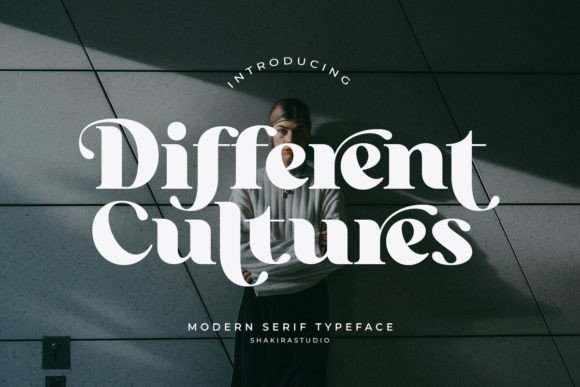
Different Cultures represents a sophisticated evolution in contemporary type design, merging the rhythmic weight of traditional serifs with a sharp, modern edge. This typeface excels at creating a visual dialogue between its heavy stems and delicate hairlines, resulting in a balanced aesthetic that commands attention on both digital screens and high-quality print. By integrating a vast library of alternates and ligatures, it empowers designers to break away from standard typesetting and craft unique, bespoke wordmarks that feel hand-tailored to specific branding needs.
Its versatility shines in contexts where a blend of global heritage and futuristic vision is required. Whether you are developing an identity for a boutique hotel or designing a high-concept magazine cover, this font provides the structural integrity and artistic flair needed to elevate the work. The meticulously crafted curves ensure that every character feels like a standalone piece of art, making it an essential tool for projects that demand a sense of worldly sophistication and refined elegance.
My Recommendation: I’d pick this for a high-end travel or lifestyle magazine where the typography needs to feel as curated as the photography. Its unique ligatures allow you to create custom-looking logos without having to manually draw every letterform.
2. Stylish Alphabet Font
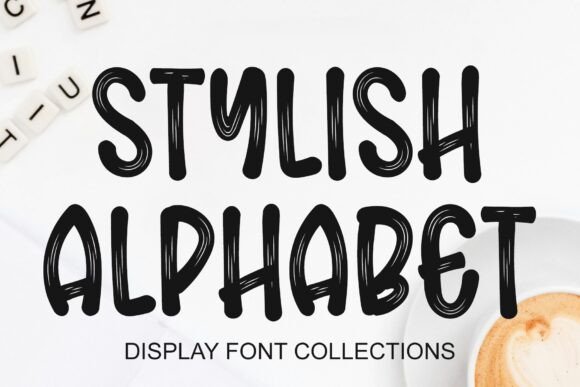
As the name suggests, Stylish Alphabet is built specifically for those who need high-impact visuals that bridge the gap between street style and editorial grace. This typeface is a quintessential example of how stylish display fonts can transform a simple headline into a powerful brand statement. It prioritizes artistic expression, utilizing exaggerated proportions and unique terminal shapes to ensure that any text set in large formats—like billboards, cinematic titles, or exhibition posters—instantly captures the viewer’s gaze and holds it.
In an era where digital noise is constant, this font offers a refreshing clarity through its bold silhouettes and expressive geometry. It is less about long-form readability and more about the visceral reaction a reader has to a single word. Perfect for edgy fashion labels or experimental art galleries, it provides a distinctive voice that feels both current and undeniably confident, ensuring your message is never lost in the crowd.
My Recommendation: This is my go-to for oversized poster designs or bold merchandise branding where the letters themselves are the main visual attraction. It has a certain cool factor that makes it perfect for streetwear labels or edgy digital portfolios.
3. Sovelis Font
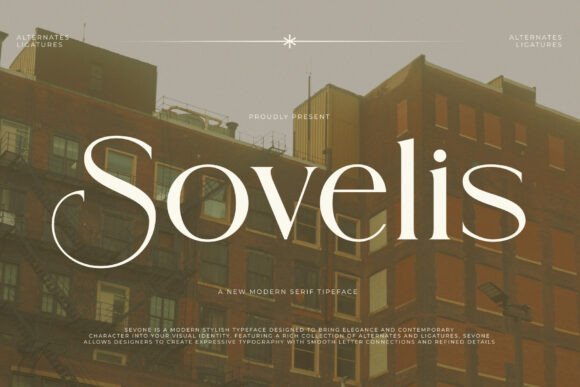
Sovelis is an architectural masterpiece in type form, designed for those who appreciate the intersection of high-fashion editorial aesthetics and structural precision. Its high-contrast letterforms are defined by sweeping, dramatic curves and needle-sharp serifs that evoke the feeling of luxury craftsmanship. This font doesn’t just sit on a page; it commands the space around it with a sense of urban-sophisticate energy, making it an ideal choice for high-end real estate developments or premium beauty brands looking to establish a prestigious presence.
The rhythmic flow of its ligatures and the sheer variety of its alternates allow for a high degree of customization, enabling designers to play with negative space and character interaction. When used in high-fashion layouts or minimalist social media headers, it brings a level of refinement that few other typefaces can match. It bridges the gap between the timeless elegance of heritage brands and the sleek, fast-paced world of contemporary design, offering a versatile yet deeply luxurious typographic experience.
My Recommendation: Use Sovelis when you want your project to scream expensive without being loud about it. Its sharp details work beautifully on wine labels or boutique hotel branding where every pixel needs to feel deliberate and upscale.
4. Cowboy Varsity Font
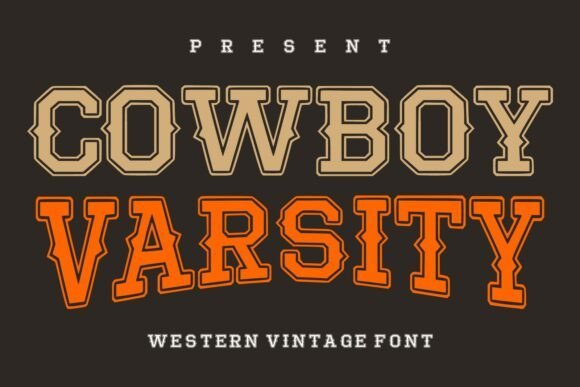
Cowboy Varsity Font creates a compelling intersection between the rugged spirit of the American frontier and the structured, competitive energy of collegiate athletics. This typeface utilizes a heavy slab-inspired base enhanced by intricate layered outlines, which provides a three-dimensional depth rarely seen in standard western styles. It acts as one of those stylish display fonts that can transition effortlessly from a retro rodeo poster to a modern athletic apparel line, offering a balanced aesthetic that feels both historic and high-performance.
When implementing this font in a design layout, its strength lies in its ability to command visual hierarchy. The bold, chunky letterforms provide exceptional readability at a distance, making it an ideal candidate for large-scale environmental graphics, varsity-style jackets, or branding for craft breweries that want to evoke a sense of heritage and craftsmanship. By mixing the traditional slab serifs of the Old West with the clean, rhythmic lines of a varsity letter, this font delivers a unique typographic voice that stands out in a crowded digital landscape.
My Recommendation: I would reach for this font when a project needs to feel masculine and authoritative but still approachable. It is particularly effective for outdoor lifestyle brands or sports-themed events where you want a punchy, nostalgic aesthetic without sacrificing legibility.
5. Darkwood Font
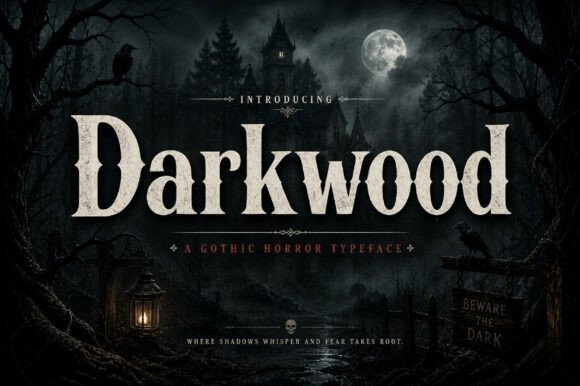
Darkwood Font is a masterclass in atmospheric typography, blending heavy serif structures with a sense of mysterious, old-world sophistication. The design features thick, compressed letterforms and sharp, angular serifs that evoke the aesthetic of artisanal woodcuts and vintage broadsides. This creates a powerful visual presence that feels both premium and slightly brooding, making it perfect for creative work that requires a strong, moody identity rather than a purely decorative flourish.
The versatility of this typeface is most apparent in branding projects for high-end spirits, artisanal coffee, or editorial titles for dark-themed fiction. Because the character widths are substantial, it holds up beautifully in print applications like embossed labels or textured packaging where the tactile nature of the font can shine. Its dramatic personality allows designers to create statement headlines that feel anchored and timeless, bridging the gap between historical elegance and contemporary graphic impact.
My Recommendation: This font has a weight and gravity that makes it feel incredibly permanent and trustworthy. I recommend using it for boutique packaging or album covers where you need the title to feel like a central piece of art rather than just a secondary label.
6. Stay Disney Font
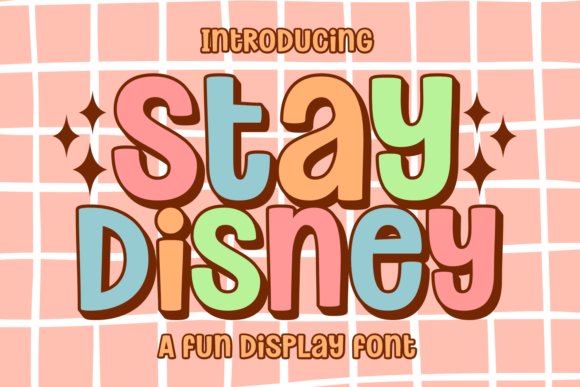
Stay Disney Font is a vibrant celebration of maximalism, channeling the groovy, bubble-letter aesthetic of the 1970s with a modern, candy-colored twist. It captures a sense of pure optimism through its rounded curves and fluid, interconnected shapes that seem to bounce off the page. As one of the most playful stylish display fonts available today, it serves as an essential tool for designers looking to inject a sense of joy and wonder into their digital assets, from social media graphics to interactive game interfaces.
Beyond its cheerful exterior, the font is remarkably functional, providing high readability even with its unconventional, bulbous forms. This makes it a top-tier choice for children’s product packaging, playful stationery, and trendy sticker designs. It fits perfectly within the ‘boho-retro’ trend, offering a soft but energetic vibe that works well for branding influencers, boutique toy stores, or any project that prioritizes a fun, approachable, and highly tactile visual language. The inclusion of multi-lingual support and swash variants further extends its utility for global creative campaigns.
My Recommendation: The infectious energy of these bubble letters makes them a fantastic choice for any project that needs to feel friendly and high-energy. I personally love using this for YouTube thumbnails or digital planner titles because the letters have such a satisfying, pillowy volume.
7. Maka Font
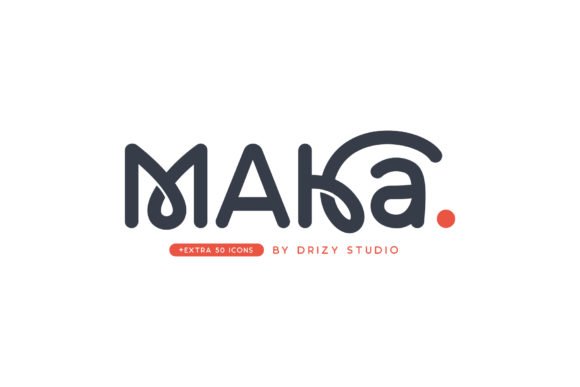
Maka Font introduces a compelling visual rhythm that instantly elevates any layout from standard to extraordinary. Its structure leans into a blend of organic fluidity and calculated precision, making it an ideal candidate for projects that require a strong personality without sacrificing legibility. The letterforms are crafted to command attention, ensuring that your headlines and title sequences possess a distinct, memorable quality.
Beyond its aesthetic appeal, this typeface is exceptionally versatile, adapting seamlessly to various creative contexts from digital interfaces to printed ephemera. Whether you are working on a high-end fashion magazine or a boutique branding project, its unique contours provide a sophisticated edge. The typeface encourages experimentation, allowing designers to push the boundaries of modern typography while maintaining a professional and polished finish.
My Recommendation: I’d pick this for a project that needs a touch of controlled chaos; it’s perfect for indie zines or experimental fashion branding. The way the characters interact creates a natural flow that makes long-form headings look much more dynamic than a standard sans.
8. Vera Font
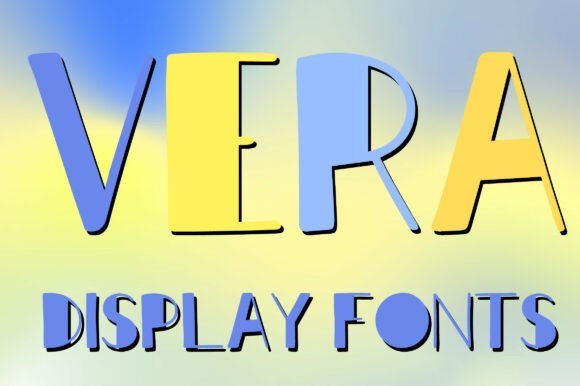
Vera Font stands out as a premier example of how height and shadow can redefine a page. This typeface utilizes tall, elongated letterforms and a playful mixture of stroke weights to create a sense of vertical movement. The integrated shadow details add a layer of three-dimensional depth, making it one of the most effective stylish display fonts for designers looking to create impact in crowded visual environments.
Equipped with a full set of uppercase characters and numerals, Vera is engineered for clarity and artistic flair. The soft rounded edges balance the sharpness of its tall proportions, providing a handcrafted feel that remains clean and professional. It is particularly well-suited for logo design, bold poster layouts, and social media assets where a fresh, eye-catching aesthetic is paramount to capturing audience interest.
My Recommendation: Use Vera when you need your headlines to literally pop off the screen as the built-in shadows save so much time in post-production. It is my go-to for summer-themed event posters or boutique packaging because of its breezy yet bold architectural vibe.
9. Annabeth Font
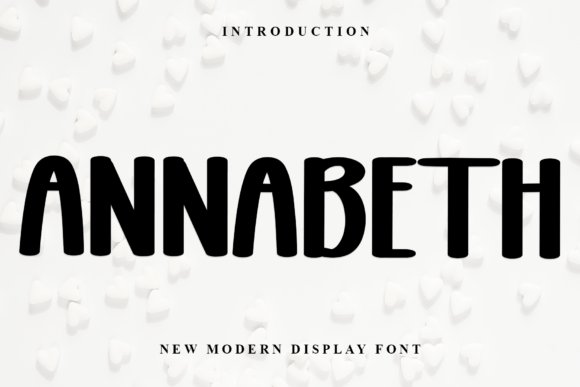
Annabeth Font is a sophisticated homage to classical calligraphy, reimagined through a contemporary lens for the modern designer. Its form is defined by impeccable balance and varied stroke widths that mimic the natural movement of a pen, resulting in a typeface that feels both timeless and current. By bridging the gap between traditional handwriting and high-impact display needs, it offers a level of typographic finesse that is hard to replicate with standard serif options.
A standout feature of this typeface is its PUA encoding, which provides effortless access to a wide array of glyphs and ligatures. This allows for a high degree of customization, enabling designers to tailor the look of every word to fit the specific mood of a project. From luxury invitations to high-end beauty branding, the graceful curves and refined structure of the typeface ensure that every application exudes elegance and premium quality.
My Recommendation: This is the font I reach for when a client asks for expensive-looking typography that does not feel stuffy or outdated. It works beautifully on wedding stationery or high-end lifestyle blogs where the goal is to communicate grace and attention to detail.
10. Vintage Font
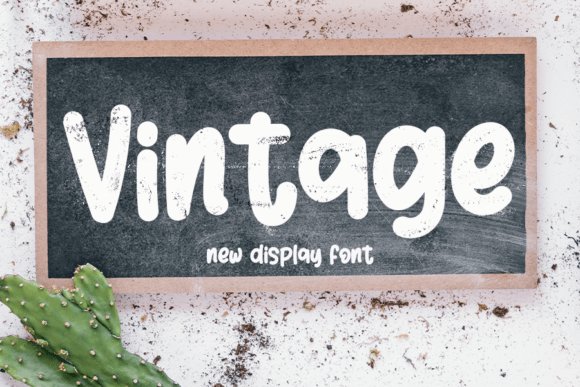
The Vintage Font stands as a masterclass in combining calligraphic tradition with the sharp requirements of modern digital displays. Drawing deep inspiration from timeless hand-lettering, this typeface features balanced proportions and a varied character set that mimics the natural flow of ink on parchment. Each stroke is meticulously polished to ensure that while it carries an old-world charm, it never feels dated or out of place in a contemporary layout.
When searching for stylish display fonts that can elevate a luxury brand’s identity, this font offers a unique solution by injecting personality into every headline. It is particularly effective for high-end wedding stationery, artisanal product packaging, and editorial mastheads where beauty and form are just as important as the message itself. The interplay between thick and thin lines creates a rhythmic visual interest that holds the viewer’s attention across various print and digital mediums.
My Recommendation: I would reach for this font when a project requires a touch of historical sophistication without sacrificing modern legibility. It is the perfect choice for high-end skincare packaging or custom invitations where you want the typography to feel curated and bespoke.
11. Simple Anime Font
Simple Anime Font delivers a powerful visual punch through its thick, unapologetic character forms that demand immediate attention. While many typefaces in this genre overcomplicate their geometry, this design leans into a clean, minimalist approach that maximizes impact. The heavy weights are expertly handled to maintain excellent legibility even at smaller scales, making it a versatile tool for designers who need their message to stand out in a crowded visual environment.
This typeface is exceptionally well-suited for high-energy projects like gaming thumbnails, streetwear branding, and energetic social media graphics. Its chunky nature gives it a playful yet assertive personality that resonates with younger audiences and pop culture enthusiasts. Whether used for a bold T-shirt slogan or a dynamic video title sequence, the characters provide a solid foundation that supports vibrant color palettes and complex graphic overlays.
My Recommendation: This is my go-to for merchandise design or YouTube thumbnails because it cuts through the noise so effectively. Its weight allows for great texture overlays or neon glow effects, making it a dream for creative experiments.
12. Maghikle Font
Maghikle Font is a sophisticated sans serif that redefines elegance through its unique character silhouettes and refined spacing. Unlike standard geometric faces, this typeface introduces subtle stylistic flourishes that give it a high-fashion edge, bridging the gap between minimalist utility and decorative art. Its lean, architectural structure makes it an ideal candidate for projects that aim for a look of understated luxury and modern exclusivity.
As one of the more versatile stylish display fonts in a designer’s toolkit, it excels in contexts like upscale magazine layouts, boutique logo design, and high-concept apparel branding. The font’s inherent grace allows it to carry the weight of a brand’s identity with very little assistance from supporting graphics. It works beautifully in high-contrast color schemes, such as gold foil on matte black, where the precision of its outlines can truly shine and convey a sense of premium quality.
My Recommendation: I highly recommend Maghikle for anyone working on a minimalist fashion brand or a high-end architectural portfolio. The way the characters interact creates a rhythmic, expensive feel that makes even a simple one-word logo look like a work of art.
13. Funny Hippo Font
Funny Hippo breaks away from the rigid structures of traditional typography, offering a bubbly and approachable aesthetic that feels hand-crafted and welcoming. Its rounded, curvy accents create a soft visual texture, making it particularly effective for projects that require a friendly, informal touch. The varied letter proportions and dynamic angles give each word a sense of movement, ensuring that even static text feels energetic and alive.
This typeface excels in environments where personality is paramount, such as children’s educational materials, artisanal packaging, or casual blog headers. By balancing thick, friendly strokes with unexpected geometric shifts, it provides a unique character that stands out against more clinical sans-serif alternatives. It is a fantastic asset for designers looking to inject a bit of joy and spontaneity into their visual communication without sacrificing readability.
My Recommendation: I love using this for playful branding because it feels human and approachable. It is especially great for craft packaging or youth-oriented products where you want to avoid anything too corporate or stiff.
14. Valentine Font
Valentine represents the pinnacle of modern minimalism, bridging the gap between high-fashion editorial and contemporary digital design. As one of those rare stylish display fonts that manages to be both striking and understated, it utilizes clean lines and precise geometry to convey a sense of prestige. Its letterforms are crafted with a focus on balance and negative space, allowing for a breathable layout that feels expensive and curated.
Whether you are designing a high-end logo for a jewelry brand or a sleek movie title, this typeface provides the structural integrity needed for luxury branding. Its versatile nature makes it equally at home on a minimalist book cover as it is on social media graphics for a boutique clothing line. The sharp, clean edges ensure that the text remains crisp across various media, from printed silk tags to high-resolution digital screens.
My Recommendation: This is my top pick for high-end fashion logos or minimalist wedding invitations. It has a beautiful, airy quality that makes any project feel instantly more expensive and professional.
15. The Paloma Font
The Paloma is a masterclass in high-contrast design, blending the timeless tradition of classical serifs with a sharp, contemporary edge. Each glyph is defined by an extreme variation between its hairlines and stems, creating a dramatic visual rhythm that commands attention on the page. This refined aesthetic makes it an ideal choice for editorial layouts where the typography needs to act as a central design element rather than just a vehicle for information.
Its sophisticated silhouette is particularly effective for luxury identities and upscale lifestyle branding. The sharp, needle-like serifs add a level of precision that feels artisanal and bespoke, making it perfect for wine labels, high-end fragrance packaging, or minimalist gallery posters. By choosing this font, designers can achieve a look of quiet confidence and enduring elegance that bypasses passing trends in favor of a more permanent, sophisticated appeal.
My Recommendation: I would choose this for a luxury editorial spread or a premium lifestyle brand. The extreme contrast between the thick and thin lines creates a sharp, high-fashion look that is truly captivating.
16. Thick Font
Thick offers a refreshing take on the retro script genre, blending heavy-weighted strokes with a lighthearted, handwritten rhythm. This typeface manages to feel both substantial and agile, making it a standout selection among modern stylish display fonts that aim for a nostalgic yet current aesthetic. Its smooth curves and organic flow are meticulously crafted to ensure that even at larger scales, the letterforms maintain a soft, approachable charm that resonates with contemporary audiences.
Beyond its visual appeal, this font is a powerhouse for branding and merchandise design. Whether you are creating a bold logo for a startup or a vibrant graphic for a T-shirt, its chunky architecture provides excellent legibility and a friendly vibe. It bridges the gap between vintage sign painting and digital-first design, making it particularly effective for product labels and invitation headers where a touch of personality is paramount.
My Recommendation: I would pick this font for a project that needs to feel like a warm hug—it has a bounce and friendly weight that works wonders for artisanal food packaging. It’s the kind of script that stands out on a hoodie or a coffee shop window without feeling overly formal or stiff.
17. Biges Font
Biges is a masterclass in editorial elegance, featuring razor-thin serif details and sophisticated swashes that dance across the baseline. Unlike traditional heavy serifs, this typeface embraces a slender, elongated silhouette that projects a sense of luxury and calm. The interplay between its sharp edges and fluid flourishes creates a dynamic visual rhythm, transforming standard copy into a piece of high-end typographic art that demands a second look.
Designed with a focus on whitespace and balance, the uppercase characters offer a particularly refined presence. The generous kerning and open apertures make it an exceptional choice for minimalist headlines and premium identity systems. It excels in contexts where the goal is to convey prestige without shouting, providing a polished and graceful foundation for fashion magazines, luxury packaging, and boutique brand marks.
My Recommendation: Use Biges when you are aiming for that ‘Vogue’ aesthetic; its airy letterforms and delicate swashes are perfect for high-end skincare or jewelry brands. It brings a sophisticated silence to a layout that allows your imagery to breathe while still looking incredibly expensive.
18. Cowboy Outlines Font
Cowboy Outlines brings a rugged, frontier-inspired spirit to the digital age, revitalizing the classic slab-serif look with a crisp outline treatment. As one of the more versatile stylish display fonts in the vintage category, it captures the essence of old-west posters while offering the clarity required for high-definition screens. The geometric precision of the hollow strokes allows for incredible flexibility, enabling designers to experiment with background textures and color overlays without losing the font’s structural integrity.
This typeface is perfectly suited for projects that require a bold, masculine presence with a hint of nostalgia. Its outlined form is specifically engineered for layering, making it a go-to tool for creating complex shadow effects or multi-colored emblems. From brewery branding to rugged outdoor apparel labels, this font provides a timeless western character that feels intentionally crafted and visually impactful.
My Recommendation: This is my favorite choice for creating custom patches or varsity-style logos because the outline allows you to layer it over textures without the design feeling too heavy. It captures that authentic Americana vibe perfectly for craft beer labels or music festival posters.
19. Distressed Font
Distressed Font offers an uncompromisingly raw aesthetic that perfectly captures the essence of street culture and industrial grit. Its heavily textured outlines and irregular strokes create a sense of movement and authentic wear-and-tear that clean typefaces simply cannot replicate. It excels in environments where a sense of history or rebellious energy is needed, making it a standout choice for high-impact visual storytelling and underground branding.
Beyond its rugged exterior, this typeface maintains a high level of legibility even at smaller display sizes. It is particularly effective for branding projects that lean into a vintage punk or weathered aesthetic, such as apparel design, artisanal packaging, or alternative music promotion. By incorporating these distressed elements, designers can infuse their work with a tactile, handmade quality that resonates with audiences looking for authenticity over polished perfection.
My Recommendation: I would reach for this font when working on a craft brewery label or a gritty documentary poster. Its organic imperfections provide an immediate sense of character that makes a brand feel lived-in and genuine rather than mass-produced.
20. Puzo Font
Puzo Font represents a sophisticated take on contemporary type design, balancing bold structural geometry with elegant curves. As a prime example of stylish display fonts, it manages to remain versatile enough for luxury editorial layouts while maintaining a distinct personality that commands attention. The letterforms are meticulously weighted to ensure a harmonious flow across headlines, giving any composition a refined and professional finish that feels modern yet timeless.
The versatility of this typeface allows it to transition seamlessly between high-end fashion branding and modern digital interfaces. Its clean lines and unique character terminals offer a fresh perspective on minimalist typography, ensuring that your message stands out in a crowded visual landscape. Whether used for a minimalist logo or an expansive magazine spread, it provides a polished look that elevates the overall design hierarchy and visual appeal.
My Recommendation: This is my go-to choice for sophisticated tech startups or boutique hotel branding. It has that rare ability to look expensive and curated without being overly ornate, making it perfect for a brand that values modern minimalism and class.
21. Neon Night Font
Neon Night Font captures the electrifying energy of a metropolis after dark, drawing heavy inspiration from the luminous glass tubes of retro signage. Each character is crafted with a sense of depth and vibrancy, mimicking the glow and soft falloff of actual neon light. It is a highly expressive typeface that immediately transports the viewer to a world of futuristic cityscapes and late-night adventures, making it ideal for high-contrast digital designs and immersive brand environments.
While it thrives in retro-wave and synth-wave contexts, this font also brings a modern urban edge to streetwear marketing and social media graphics. Its bold, tubular structure works exceptionally well when paired with vibrant color palettes and dark backgrounds, providing a striking visual anchor for YouTube thumbnails or event flyers. This typeface doesn’t just display text; it sets a specific mood of excitement and nocturnal mystery that is hard to ignore.
My Recommendation: I would use this specifically for a podcast cover or a late-night cafe menu where you want to evoke a city-that-never-sleeps vibe. The way the lines flow makes it feel dynamic and perfect for projects that need to pop against dark backgrounds.
22. Shallota Font
Shallota stands as a masterclass in modern elegance, merging heavy, confident weights with a refined, smooth silhouette. Its aesthetic is deeply rooted in the world of high-end editorial work and boutique fashion, where every curve and terminal must convey a sense of luxury. As one of the most effective stylish display fonts for creators seeking a high-contrast look, it effortlessly draws the eye without overwhelming the surrounding design elements.
Functionally, the font is PUA encoded, which is a significant boon for designers who want to push their creative boundaries. This technical feature ensures that all the intricate swashes and unique glyphs are accessible across various software platforms, allowing for custom ligatures that make a logo or headline feel bespoke. Whether you are crafting a masthead for a lifestyle magazine or a visual identity for a premium skincare line, this typeface provides the necessary gravitas and artistic flair.
My Recommendation: I would choose Shallota for luxury branding or minimalist magazine covers where you need the text to feel like a piece of art. The way the bold strokes transition into delicate lines creates a rhythm that feels very high-fashion and expensive.
23. Theory Display Font
Theory Display breaks away from the polished world of digital vectors to offer an authentic, hand-crafted aesthetic. Created with a brush pen, this typeface retains the gritty, organic textures and flowing motion of wet ink on paper. Its visual language is one of raw energy and spontaneity, making it an ideal candidate for projects that require a human touch or a sense of street-level urgency.
The font’s charm lies in its imperfections, such as the natural dry-brush streaks and variable stroke widths that suggest a designer’s hand at work. This makes it particularly effective for music festival posters, cinematic titles, or urban apparel brands where a sterile typeface would feel out of place. It layers beautifully over photography, lending a visceral and textured quality to headlines that demands immediate attention from the viewer.
My Recommendation: This is my go-to for action-oriented designs or event branding where you want a raw, handmade vibe. Its textured finish means you don’t have to spend extra time adding distressing effects to your typography; it carries that energy right out of the box.
24. Melipe Font
Melipe is a breath of fresh air for designers looking to inject whimsy and playfulness into their visual storytelling. With its bouncy baselines and unconventional character shapes, it manages to be both highly engaging and surprisingly versatile. In a landscape filled with rigid typography, Melipe stands out among stylish display fonts by prioritizing a sense of joy and approachability that is often missing in professional font kits.
The typeface excels in environments where the goal is to build a friendly rapport with the audience, such as children’s educational materials, artisanal product packaging, or vibrant social media campaigns. Its unique letterforms provide a distinctive personality that can anchor an entire brand identity, ensuring that the messaging feels imaginative and full of life. It’s a tool for creators who want to break the mold and offer something that feels warm, personal, and visually captivating.
My Recommendation: Melipe is fantastic for boutique food packaging or creative apps aimed at a younger, more imaginative audience. I love how it balances a quirky personality with great legibility, making it a reliable choice for long headlines that still need to look fun.
25. Charlotte Font
Charlotte is a masterclass in typographic harmony, striking a perfect equilibrium between weight and whitespace. Its design philosophy centers on a balanced structure that avoids the extremes of spindly lines or overwhelming thickness, making it a versatile choice for designers aiming for a refined, upscale aesthetic. The subtle variations in its strokes suggest a handcrafted origin, lending an organic warmth to digital layouts that often feel too sterile.
This typeface excels in environments where beauty and readability must coexist, such as luxury skincare packaging or high-end editorial spreads. Its rhythmic flow guides the eye effortlessly across the page, while the carefully sculpted serifs add a touch of classic sophistication. Whether you are crafting a brand identity for a boutique or designing a curated coffee table book, this font provides the structural integrity needed to anchor your visual narrative.
My Recommendation: I would reach for this font when a project requires a touch of grace without being overly delicate. It is particularly effective for lifestyle branding where you need the typography to feel both approachable and expensive at the same time.
26. Blue Bronx Font
When your design requires a bold, unapologetic presence, Blue Bronx stands out as one of the most compelling stylish display fonts available today. Characterized by its heavy-set letterforms and daring silhouettes, this typeface is engineered for high-impact communication. It discards subtlety in favor of a confident, urban energy that makes every word feel like a definitive statement, making it perfect for catching the eye in a crowded marketplace.
Beyond its visual weight, the font offers a modern edge that suits contemporary branding, product labels, and energetic advertising campaigns. Its thick, sturdy strokes ensure maximum legibility even at large scales, making it an ideal candidate for billboard designs or streetwear merchandise. By integrating this face into your creative toolkit, you gain the ability to infuse projects with a sense of strength and forward-thinking style that is hard to ignore.
My Recommendation: This is my go-to for loud branding projects that need to bridge the gap between street culture and professional design. It works exceptionally well on physical packaging where the texture of the print can play off the font’s bold geometry.
27. Nyla Font
Nyla represents a fascinating intersection of elongated verticality and soft, rounded geometry, creating a chic visual language that feels both modern and whimsical. By blending these contrasting shapes, the typeface achieves a unique ‘tall’ profile that saves horizontal space while maximizing vertical presence. This makes it an excellent choice for experimental layouts where typographic height can be used to create architectural interest on the page.
The font is specifically tailored for creative applications that prioritize expressive character over traditional text blocks, featuring uppercase English letters and numbers that pop with personality. Its playful yet sophisticated construction makes it a standout for event posters, artistic social media assets, and specialized logo marks. Because it avoids standard conventions, it invites designers to push their creative limits and explore unconventional kerning and stacking techniques.
My Recommendation: I recommend this specifically for headline-heavy work where you want to break away from standard proportions. The tall, circular nature of the letters makes it incredibly fun to use in vertical layouts or minimalist poster designs.
28. Stay Lucky Font
Stay Lucky is a powerhouse of personality that draws heavily from the maximalist aesthetic of the 1970s. This typeface is more than just a set of letters; it is a full-bodied design tool that captures the essence of groovy, high-energy branding. Its thick, wavy strokes and bold presence make it a standout among stylish display fonts, providing a sense of nostalgic warmth that works perfectly for eye-catching t-shirt designs, vibrant product packaging, and bold posters that need to command attention immediately.
Beyond its vintage charm, this font is incredibly versatile for the modern digital landscape. Whether you are building an interface for a casual mobile game or designing assets for digital planners and stickers, Stay Lucky provides a consistent, legible, and fun atmosphere. It includes a comprehensive set of alternates and ligatures, alongside support for Procreate and SVG formats, allowing designers to manipulate the text to fit various artistic contexts from bohemian aesthetics to psychedelic retro themes.
My Recommendation: I would reach for Stay Lucky when a project needs a massive dose of optimism and character. It is particularly effective for merchandise and YouTube branding where you want to project a fun, approachable, and slightly eccentric persona that stands out in a crowded feed.
29. Slowdate Font
Slowdate represents the pinnacle of modern luxury in the world of serif typography. This typeface is defined by its slender, graceful proportions and a series of meticulously crafted ligatures that transform standard text into a bespoke piece of art. Its feminine and high-end character makes it a natural fit for editorial layouts, boutique branding, and sophisticated wedding invitations where a sense of royal elegance is required. The balance between its sharp serifs and soft, fluid curves creates a rhythmic flow that feels both timeless and contemporary.
In professional branding contexts, Slowdate excels in sectors like premium skincare, fine jewelry, and fashion-forward cosmetic labels. The font’s architecture is designed to look expensive and exclusive, providing an instant upgrade to minimalist logo designs. Because it prioritizes refinement and clarity, it functions beautifully as a primary header font that communicates a brand’s commitment to quality and aesthetic excellence without overwhelming the viewer with unnecessary complexity.
My Recommendation: This is my go-to choice for luxury branding projects that require a ‘quiet wealth’ vibe. The ligatures are so well-designed that they do most of the heavy lifting for you, making any simple wordmark look like it was custom-lettered by a high-end agency.
30. Smiles Honey Font
Smiles Honey is a vibrant celebration of the bubble-letter trend, reimagined for contemporary designers who want to inject a sense of playfulness into their work. Taking inspiration from 70s candy store signage and classic children’s books, this font utilizes thick, rounded lines to create a soft yet impactful visual weight. It is a prime example of how stylish display fonts can bridge the gap between retro nostalgia and modern digital design, making it an excellent candidate for digital sticker packs, playful social media graphics, and adventurous branding projects.
What sets Smiles Honey apart is its sheer adaptability across different creative mediums. While its heart lies in the groovy, maximalist world, its clean edges and high readability ensure it performs well in casual game interfaces and children’s product packaging. The font also supports multilingual inputs and is compatible with Procreate, providing a tactile, hand-drawn feel that works wonderfully for t-shirt graphics and boho-inspired logo sets that need a friendly, approachable touch.
My Recommendation: Smiles Honey is the font I recommend when you want to make your audience smile. It has a fantastic ‘bounce’ to it that is perfect for youthful, high-energy brands or any project that doesn’t take itself too seriously but still needs professional-grade typography.
31. Simple Lines Font
Simple Lines reimagines the concept of negative space through its meticulously balanced rounded outline aesthetic. Unlike heavier typefaces that dominate a layout, this selection offers a delicate, airy presence that works harmoniously with high-resolution photography and complex backgrounds. Its clean, hollow architecture is specifically designed for legibility even when layered, making it a sophisticated choice for designers looking to achieve a modern, minimalist look without sacrificing character or warmth.
Beyond its visual appeal, the technical precision of the paths makes it exceptionally reliable for physical production. Whether you are prepping files for vinyl cutting machines like Cricut or Silhouette, or designing high-end packaging for a boutique apothecary, the smooth curves ensure a professional finish every time. It excels in environments where a gentle touch is required, such as editorial headers, bespoke stationery, or interactive social media templates that prioritize a soft, welcoming aesthetic.
My Recommendation: I find this font indispensable for lifestyle branding where you need text to feel integrated with the imagery rather than sitting on top of it. It is particularly effective for eco-friendly product packaging or as a secondary font in a luxury brand’s visual identity because of its understated elegance.
32. Kingdom Retro Font
Kingdom Retro captures the raw energy of vintage varsity athletics and classic Americana through a bold, outlined framework. As one of the more versatile and stylish display fonts available for nostalgic branding, it bridges the gap between mid-century western posters and 90s streetwear culture. The strong, blocky structure provides a commanding presence on the page, while the interior transparency allows for creative color fills and gradient experimentation that can transform a simple headline into a focal point.
This typeface is engineered for high-impact communication, making it an ideal candidate for sports-related identities, collegiate-style apparel, and bold editorial layouts. The meticulous attention to letter spacing and geometric consistency ensures that the font maintains its authoritative voice across various media, from large-scale event banners to embroidered patches. It brings an undeniable sense of heritage and rugged professionalism to any project that requires a touch of old-school grit combined with contemporary design standards.
My Recommendation: This is a powerhouse choice for any project involving apparel or fan merchandise. I would specifically use it for a local sports league rebranding or a streetwear capsule collection to give the pieces that authentic, timeless ‘campus’ vibe that never goes out of style.
33. Bestseller Bundle Font
The Bestseller Bundle represents a curated selection of typefaces designed to meet the demands of the digital-first era, particularly in sectors like gaming, technology, and high-performance sports. Each variant within this collection is built with a focus on high-contrast forms and aggressive silhouettes that demand immediate attention. The architectural integrity of these fonts makes them suitable for everything from intricate HUD displays in video games to sleek, futuristic corporate logos that need to convey speed and innovation.
By providing a spectrum of weights and stylistic variations, this bundle allows for a cohesive visual language across an entire product ecosystem. Designers can utilize the sharper, more angular options for tech-focused branding while pivoting to the more balanced, heavy-set versions for physical merchandise like jersey numbers or large-format event signage. Its versatility is its greatest strength, offering a toolkit that adapts to the high-energy requirements of modern commercial design without feeling repetitive or generic.
Download Bestseller Bundle Font
My Recommendation: If you are working on a tech startup or a YouTube gaming channel, this bundle is a literal lifesaver. I love it for its ability to look ‘expensive’ and high-tech while remaining incredibly easy to read at a distance, making it perfect for both digital overlays and physical storefronts.
34. Bevaloire Font
Bevaloire represents a masterclass in modern editorial aesthetics, blending sculptural serif elements with a high-contrast weight distribution that feels both classic and cutting-edge. This typeface is defined by its fluid curves and artistic terminations, making it an exceptional choice for luxury branding, high-end fashion mastheads, and sophisticated packaging designs that require a touch of haute couture.
As one of the more refined and stylish display fonts in a designer’s toolkit, Bevaloire excels when used at large scales where its intricate details can be fully appreciated. Whether you are crafting a visual identity for a boutique hotel or a sleek gallery invitation, this font provides a sense of curated elegance that instantly elevates the surrounding composition.
My Recommendation: I would reach for Bevaloire when working on a project that needs to breathe luxury and quiet confidence, such as a premium skincare line or a high-end lifestyle magazine. The contrast in the strokes creates a rhythm that feels incredibly bespoke and expensive.
35. Brastika Font
Brastika is a powerhouse of visual weight, offering a thick-lettered approach that anchors any layout with undeniable authority. Each character is expertly crafted to balance heavy proportions with modern silhouettes, resulting in a typeface that feels substantial and grounded. Its bold presence makes it particularly effective for outdoor advertising, social media headers, and impactful title sequences where immediate legibility and strength are paramount.
The construction of this font leans into a contemporary aesthetic that avoids the clutter of traditional serifs, focusing instead on clean lines and a robust footprint. It thrives in environments where the typography needs to act as a primary design element, providing a solid foundation for experimental layouts or stark, minimalist poster work.
My Recommendation: This is a fantastic pick for tech-oriented brands or streetwear labels that want to project a sense of durability and ‘cool’ without trying too hard. It works best in hero sections where you want the message to hit the viewer with immediate, heavy-hitting impact.
36. Emynam Crew Font
Emynam Crew is a vibrant revival of the grooviest eras, meticulously designed to bring 1970s and 80s nostalgia into the digital age. With a staggering library of 705 glyphs, this typeface offers an unparalleled level of customization, allowing designers to play with diverse ligatures and alternative characters to create truly rhythmic and unique typographic arrangements. It captures a specific sense of ‘funk’ that is perfect for music festival posters, retro-themed branding, and apparel design.
When searching for stylish display fonts that offer character and movement, Emynam Crew stands out for its ability to mimic hand-lettered vintage signage. Its bold, flowing letterforms are not just legible but also incredibly expressive, making every headline feel like a piece of custom artwork rather than just typed text.
My Recommendation: I love the sheer versatility provided by the hundreds of alternate glyphs, which makes it perfect for a craft brewery or a record store identity. It’s my top recommendation for any project that needs to feel soulful, energetic, and slightly rebellious.
37. Dessthia Font
Dessthia emerges as a masterclass in calligraphic refinement, offering a dainty and fluid handwritten aesthetic that feels deeply personal. The font is defined by its sweeping, melodic swashes and a consistent visual rhythm that mimics the hand of a seasoned scribe. Unlike more rigid scripts, this typeface maintains a breezy, light-hearted energy that brings a sense of artisanal craftsmanship to digital projects, making it a premier choice for high-end branding and delicate editorial layouts.
Beyond its initial elegance, the typeface provides a versatile toolkit for designers working on bespoke stationery or feminine-leaning visual identities. Each character is thoughtfully weighted to ensure legibility remains intact even when the decorative flourishes take center stage. It serves as a brilliant typographic anchor for wedding invitations, luxury letterheads, and lifestyle social media graphics that require a touch of human warmth and sophisticated charm.
My Recommendation: I would turn to Dessthia whenever a project calls for an intimate, boutique feel that can’t be achieved with standard sans-serifs. Its organic flow is perfect for signature logos where you want the brand to feel approachable yet unmistakably high-end. The delicate swashes add just enough personality to make a heading pop without overwhelming the rest of the layout.
38. Migaela Font
Migaela stands as a testament to contemporary sophistication, positioning itself at the very top of the hierarchy for stylish display fonts. This typeface features sharp, high-contrast strokes and unique geometric terminals that command immediate attention in any editorial context. Its silhouette is both bold and graceful, bridging the gap between mid-century modern aesthetics and the fast-paced demands of current luxury marketing trends.
This font is particularly effective when utilized in large-scale formats, such as magazine mastheads or high-fashion lookbooks, where its intricate details can truly shine. The balance of its negative space allows for tight leading and kerning without sacrificing the structural integrity of the words. When you are searching for stylish display fonts that can carry the weight of a brand’s visual identity on their own, Migaela offers a polished, professional solution that radiates confidence and avant-garde style.
My Recommendation: This is my go-to choice for editorial covers and high-fashion branding because it has that ‘Vogue’ level of poise. Its high contrast creates a stunning visual tension that works beautifully against minimalist photography. It’s the kind of typeface that makes even a single word look like a finished piece of art.
39. Cinquecento Font
Cinquecento is a robust and architectural font family designed for those who need a diverse range of weights to tackle complex design systems. With a strong foundation rooted in classic display proportions, it offers a sense of stability and permanence that is hard to find in more decorative options. The family expands from lighter, airy iterations to thick, impactful heavyweights, ensuring that designers have the exact level of gravitas needed for everything from small-scale flyers to massive outdoor banners.
The versatility of this typeface makes it an industrial powerhouse for merchandise and apparel design, specifically within the streetwear and lifestyle sectors. Its clean lines and confident posture allow it to be layered over busy textures or placed against vibrant color palettes without losing its punch. Whether you are building an identity for a modern tech startup or designing heavy-duty packaging, the varied weights of this family provide the structural flexibility required for a cohesive and modern visual language.
My Recommendation: I highly recommend Cinquecento for anyone building a comprehensive brand identity from scratch, as the font family’s range allows for great hierarchy. The heavier weights are exceptionally punchy on t-shirts and hoodies, giving off a crisp, urban vibe that feels very current. It’s a workhorse that manages to look incredibly sleek in almost any application.
Choosing the right typeface is one of the most important decisions a designer can make. With these 39 stylish display fonts at your disposal, you’re well-equipped to create memorable visuals that resonate with your audience throughout 2026. I hope this list helps you find that perfect match for your next creative endeavor, whether it’s a bold poster or a subtle social media graphic. Happy designing!